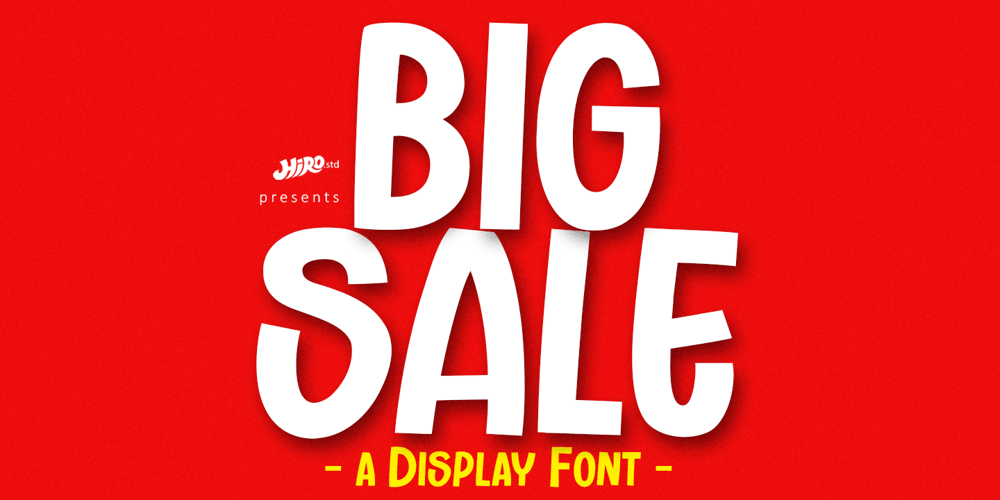
Big Sale Font Family was designed by Chairul Ashar and published by HIRO.std. Big Sale contains 1 styles and family package options. Oneself is Handwritten Font This font describes about girly, feminist, elegant, dynamic, humanist, easy to use and will bring a good harmony when the letters are connected and paired each other. FEATURES- Uppercase and Lowercase letters – Support Ligatures- Numbering and Punctuations- Multilingual Support- Works on PC or Mac USEOneself works great in any branding, logos, magazines, invitation, wedding designs, social media posts, advertisements, product packaging, product designs, label, photography, watermark, invitation, stationery, quotes and any projects that need handwriting taste. Enjoy using!Thanks. HIRO.std